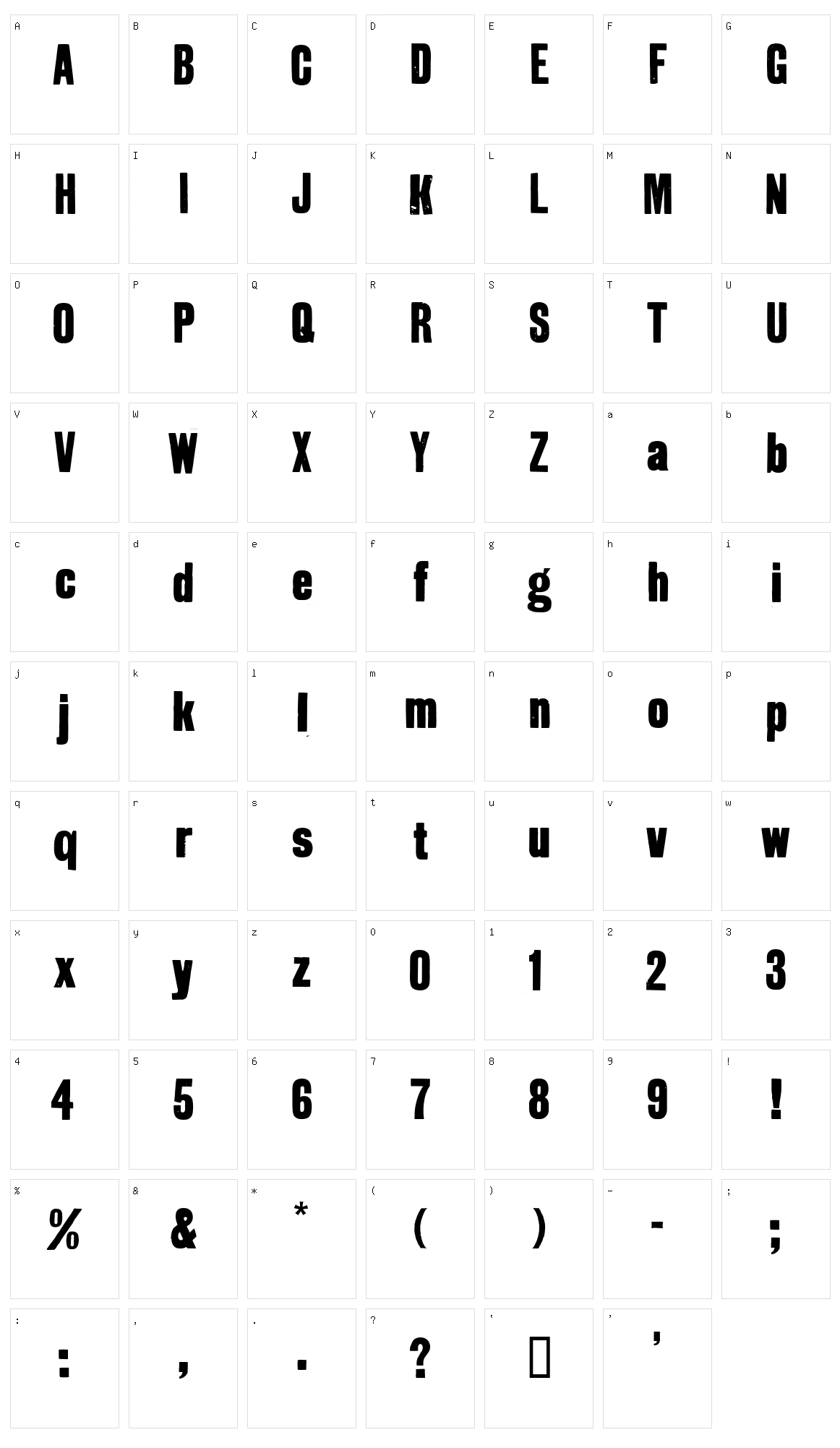
The free font GrotRough is carefully designed by Steve Kettell, showcasing a thoughtful balance of creativity and usability and falls under the Eroded font style. When you download the ZIP file, it contains only 26.25 KB of font files, making it lightweight and quick to download. Please review the license details below to understand permitted usage and distribution rights. If license information is not available, we recommend using this font for personal projects only or contacting the author directly for commercial usage permissions.
This is a font based on some wood block type I used on a job about eight
years ago. Originally it was used in conventional artwork and then I had it
digitised. Over the years it has spread through people I have given it to